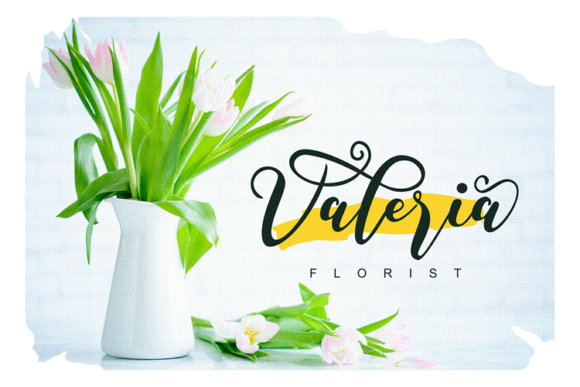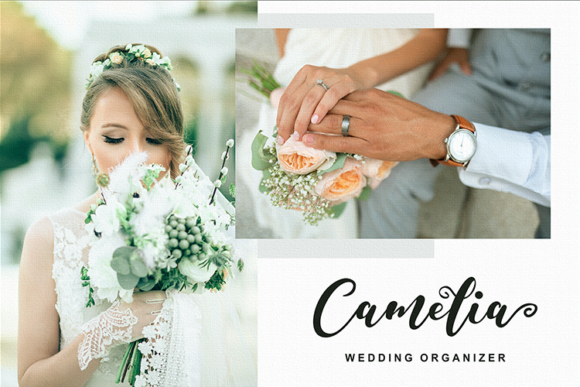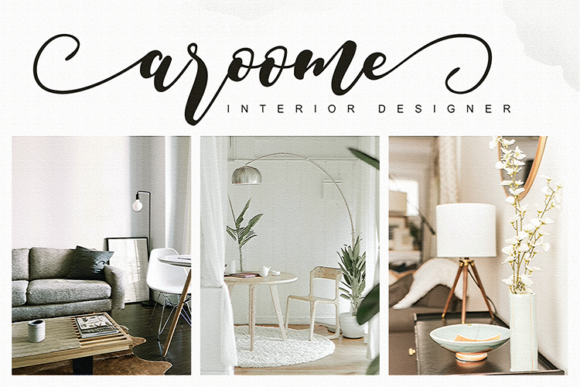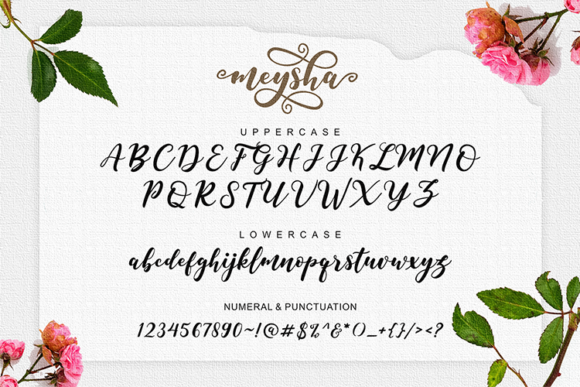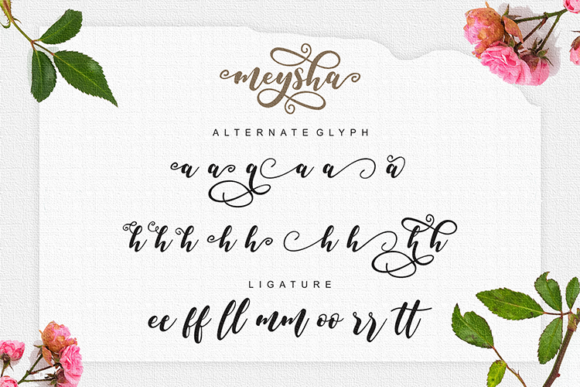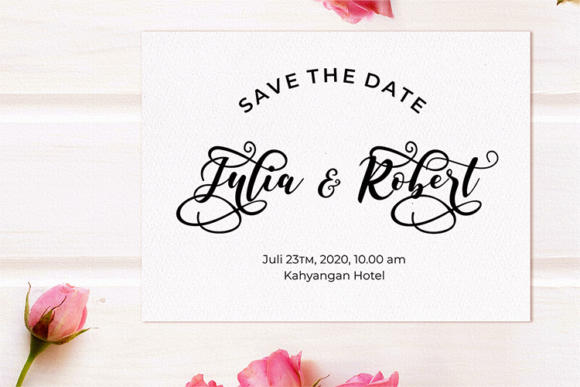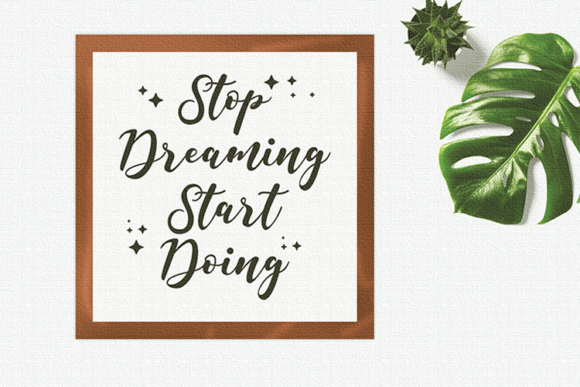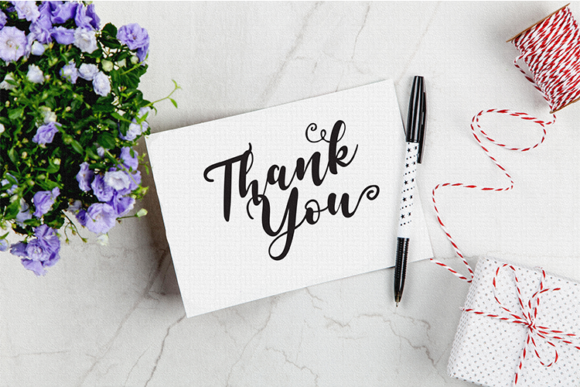
Meysha Font
About Meysha Font
Meysha is a cute handwritten font with an incredibly friendly feel. It features gorgeous swashes and ligatures that make this script incredibly versatile. Whether you’re looking for fonts for Instagram or calligraphy scripts for DIY projects, Meysha will turn any creative idea into a true piece of art!